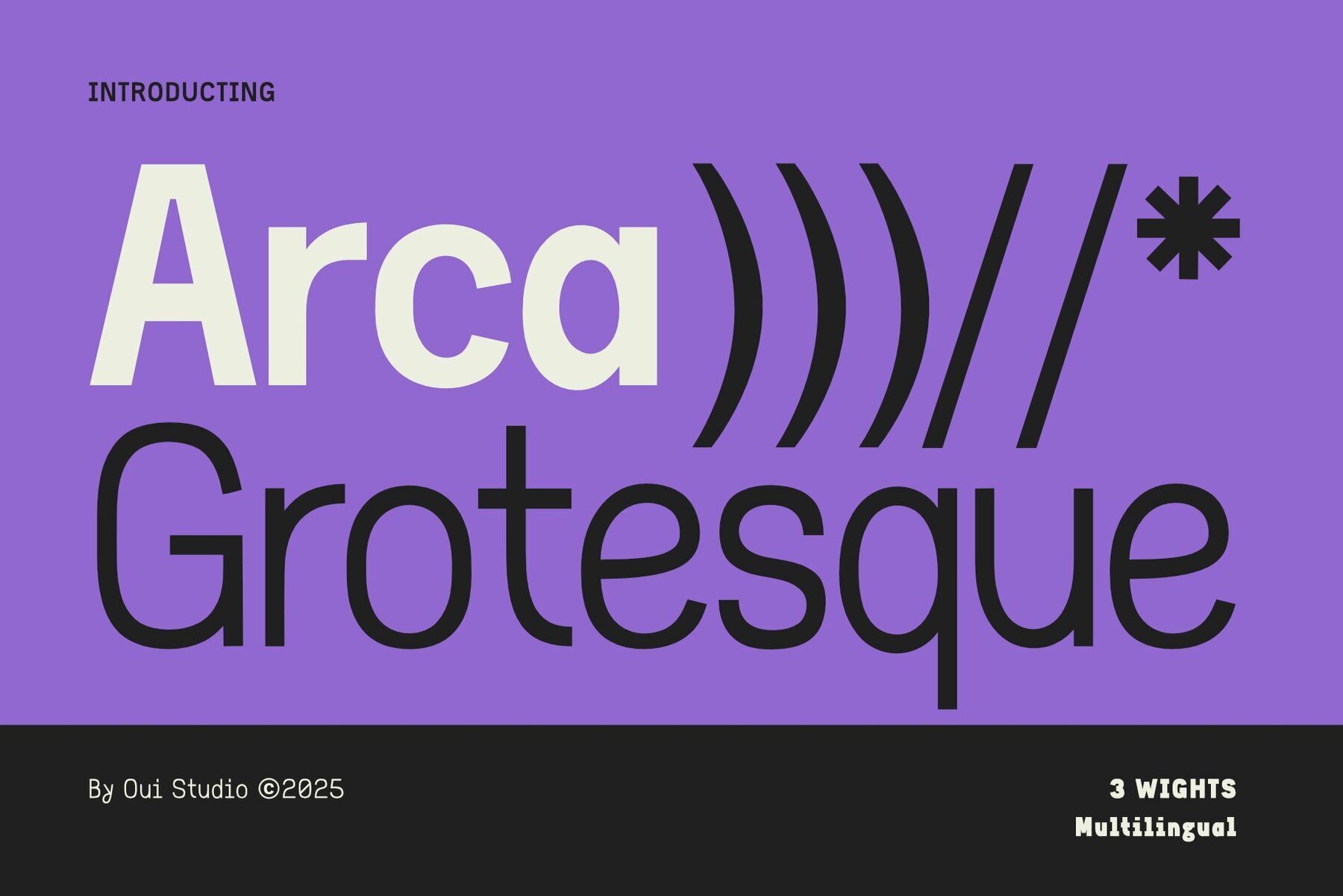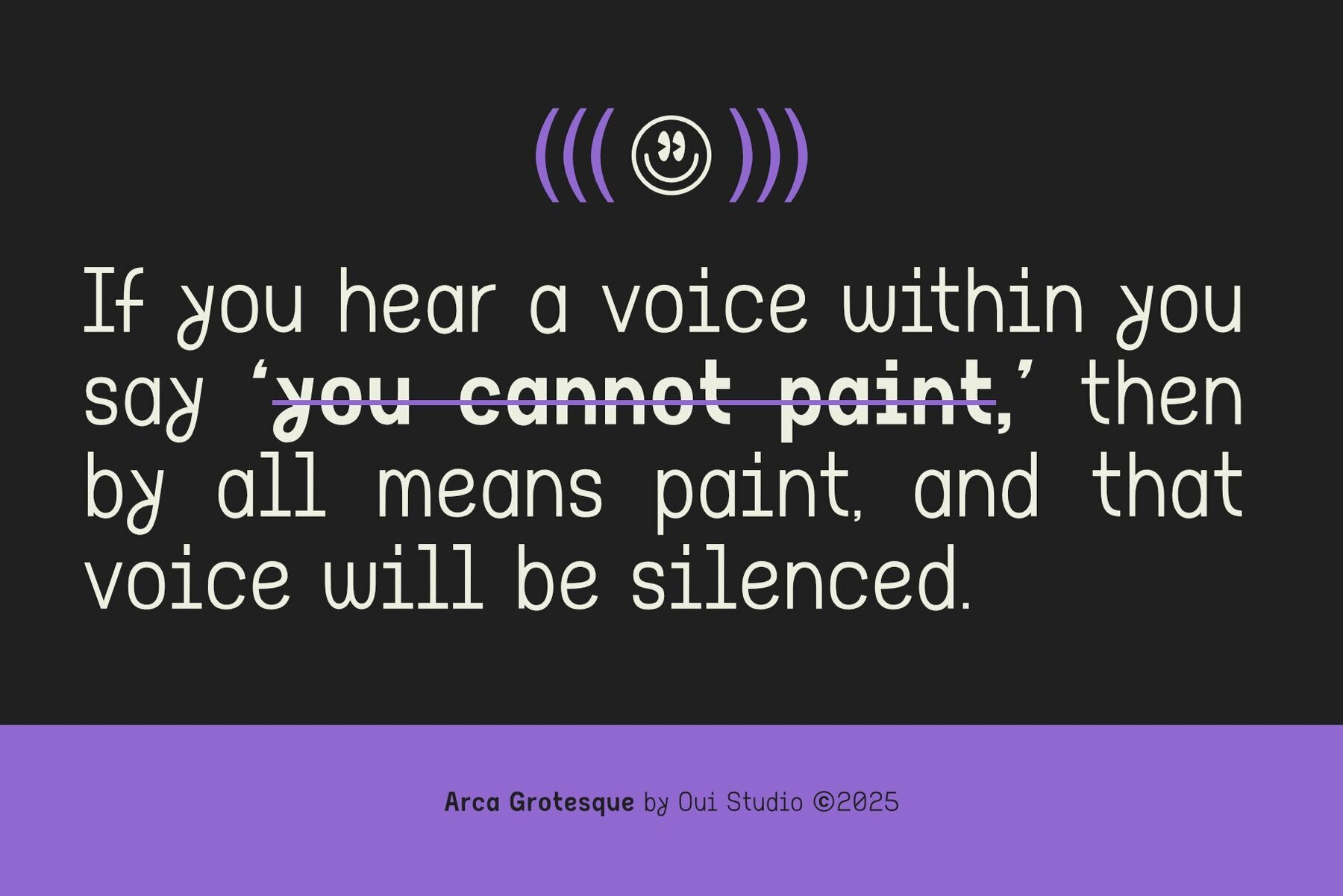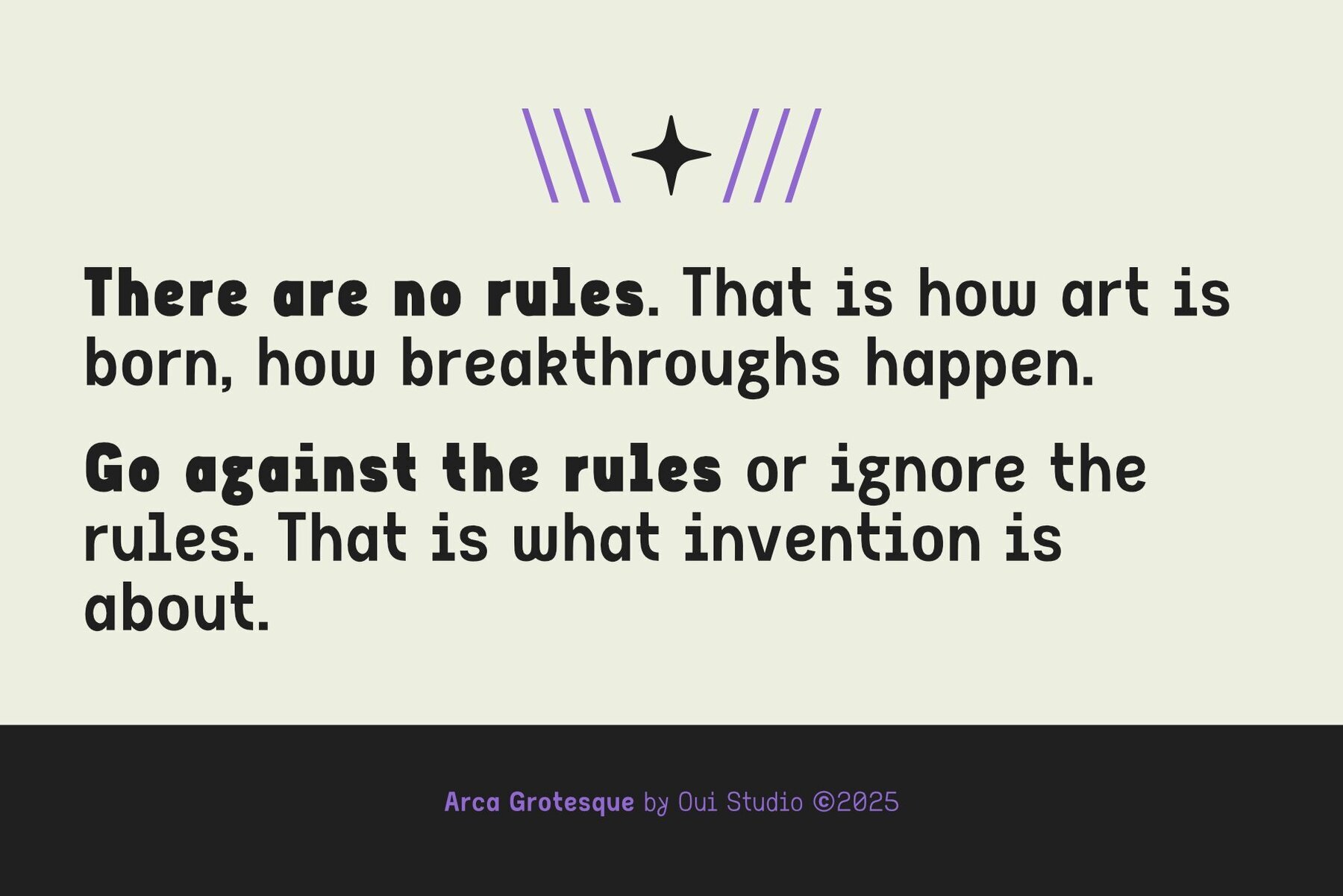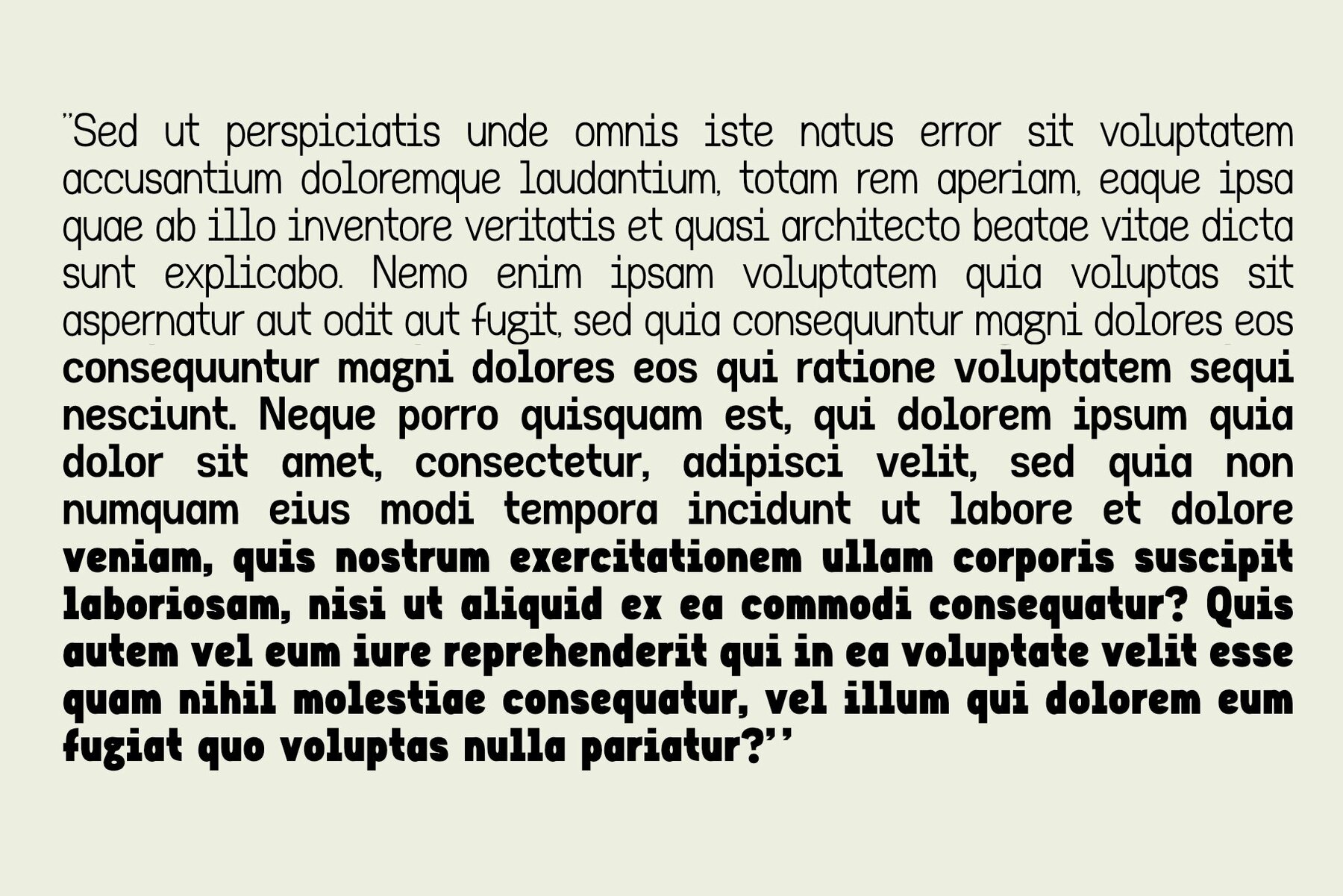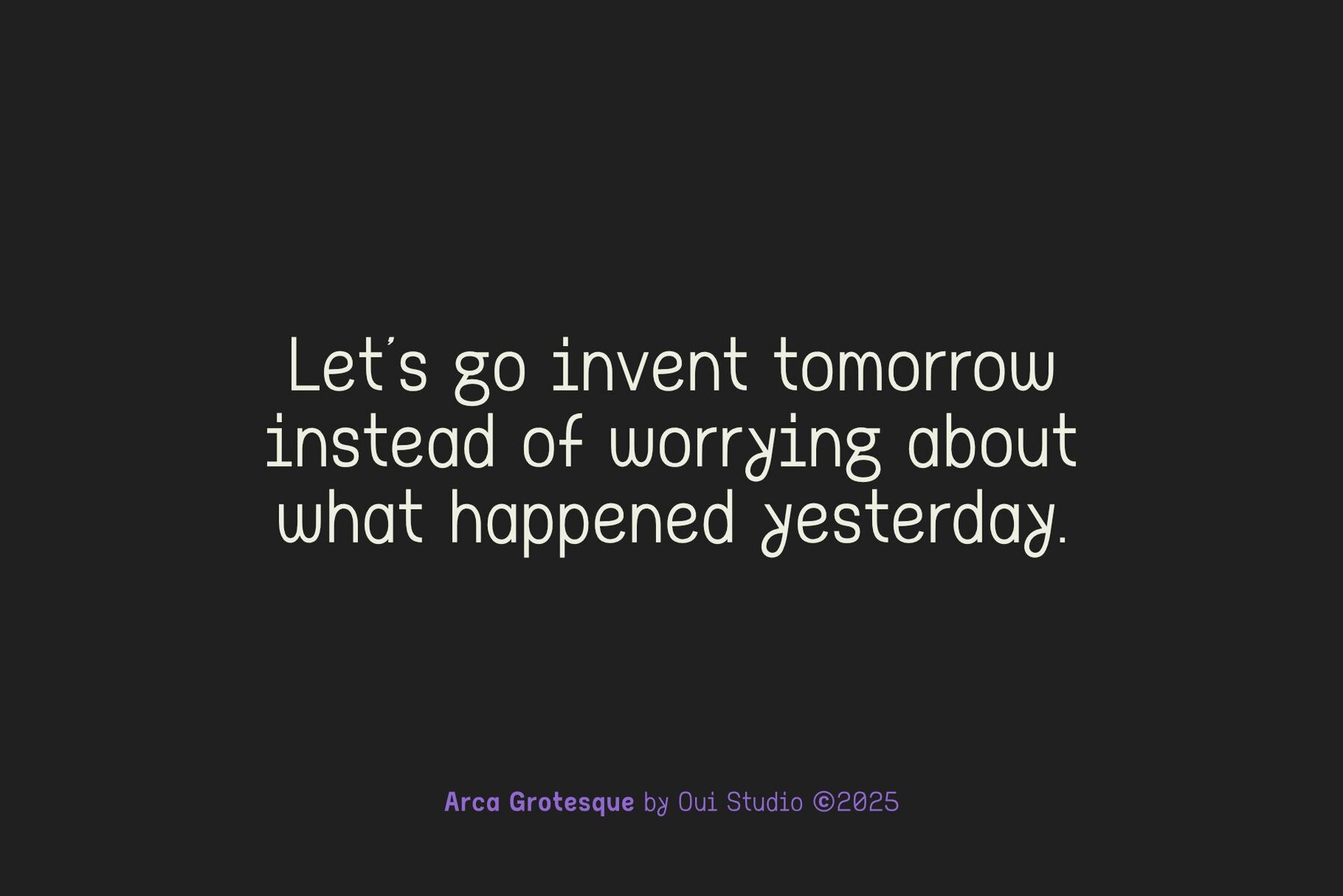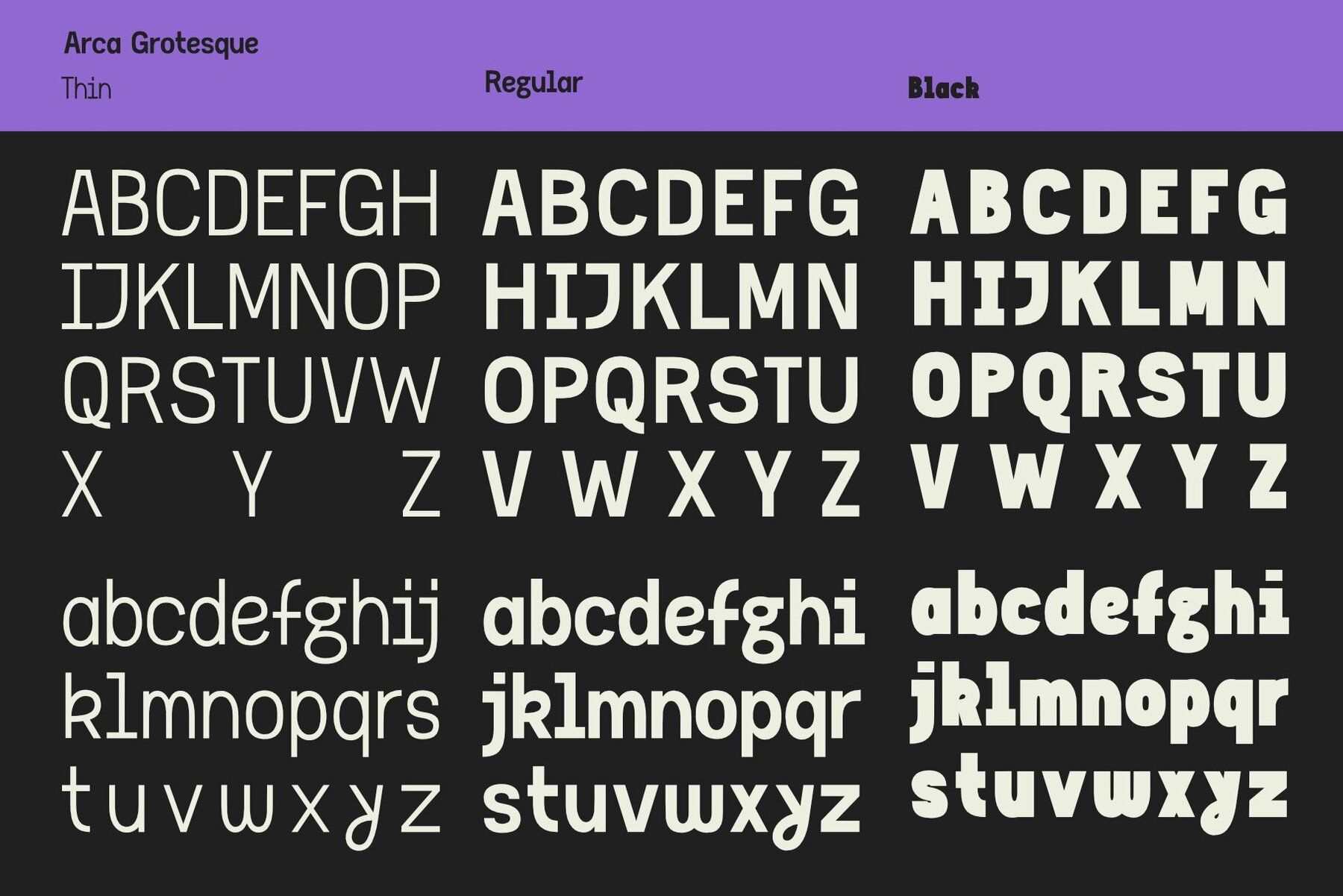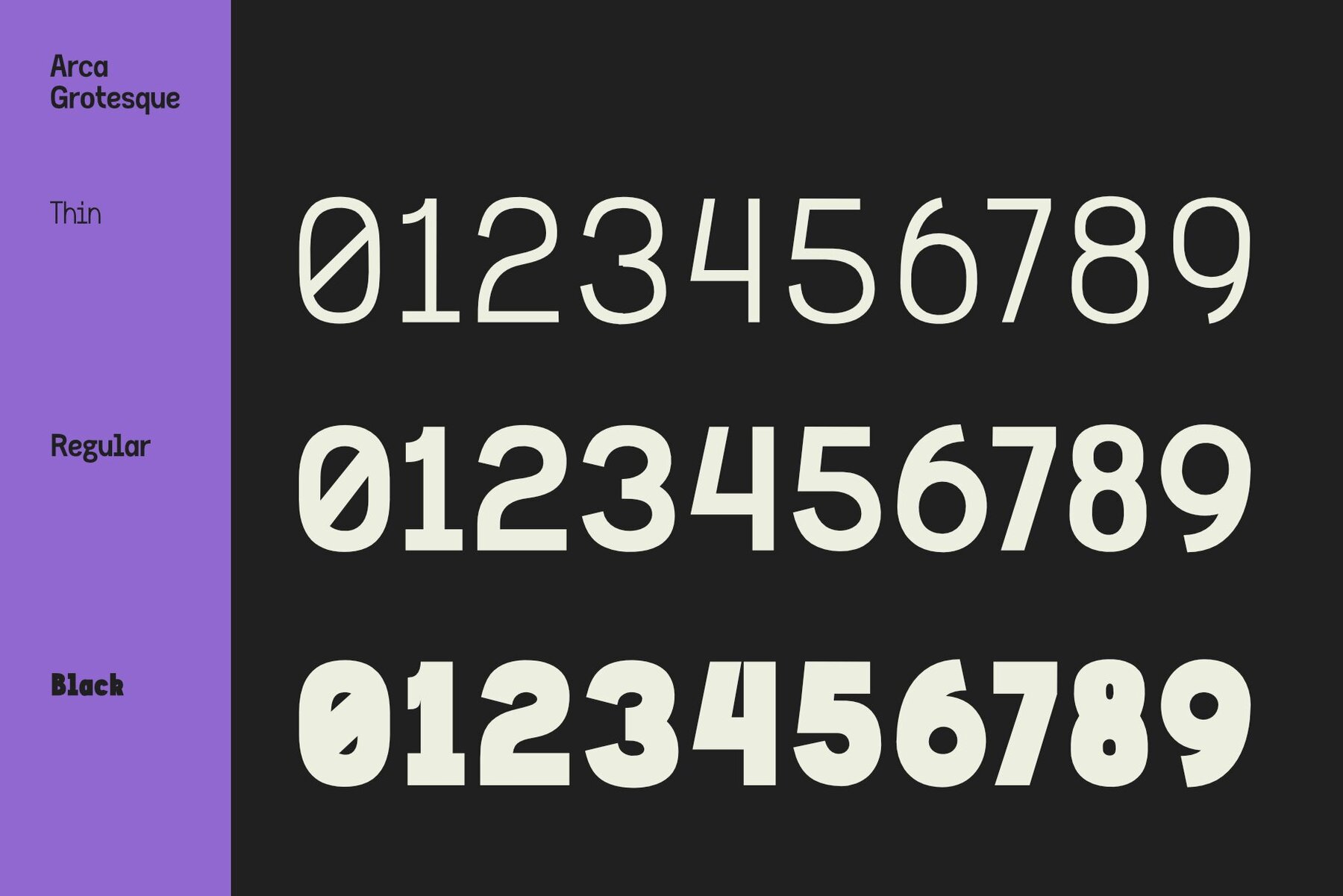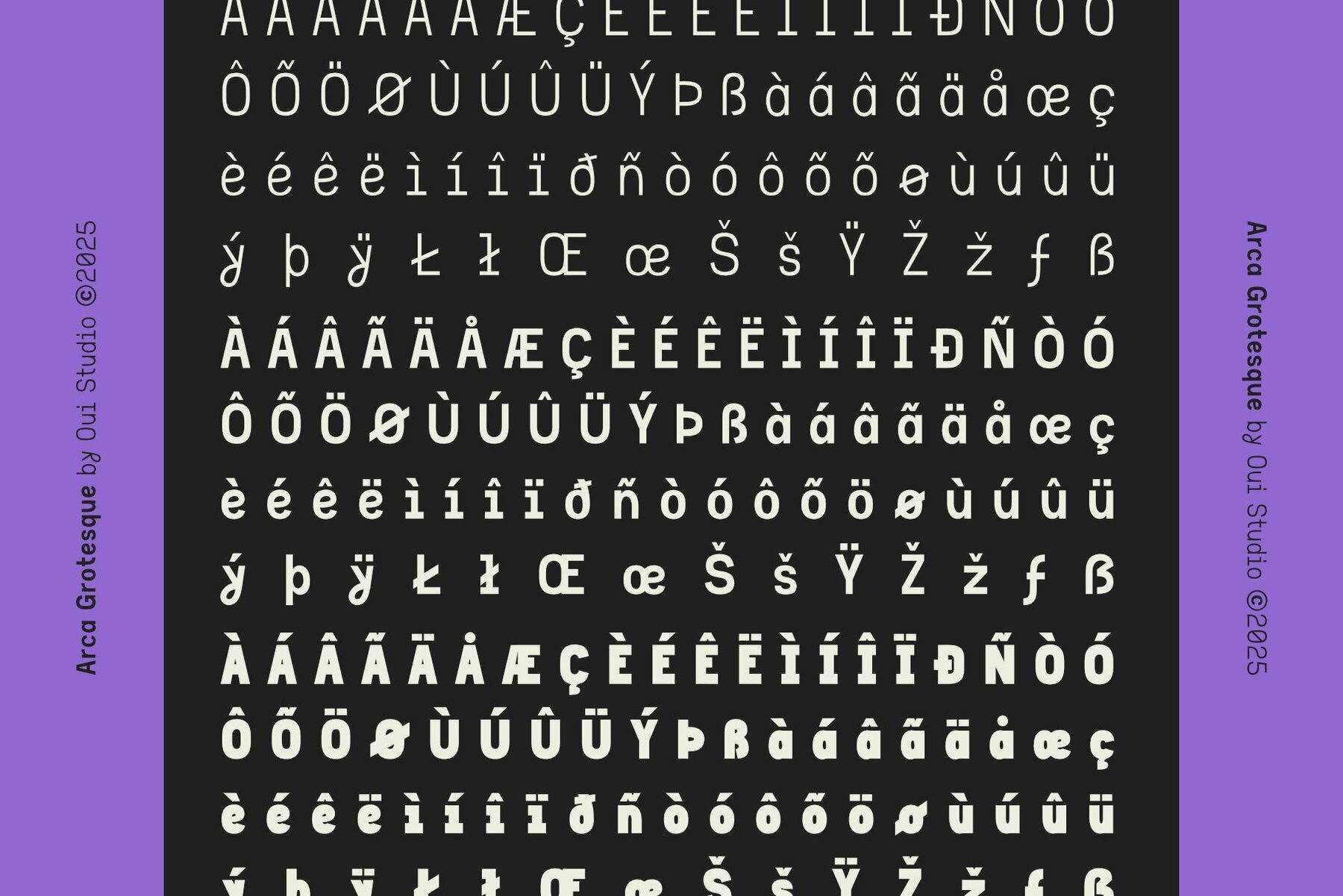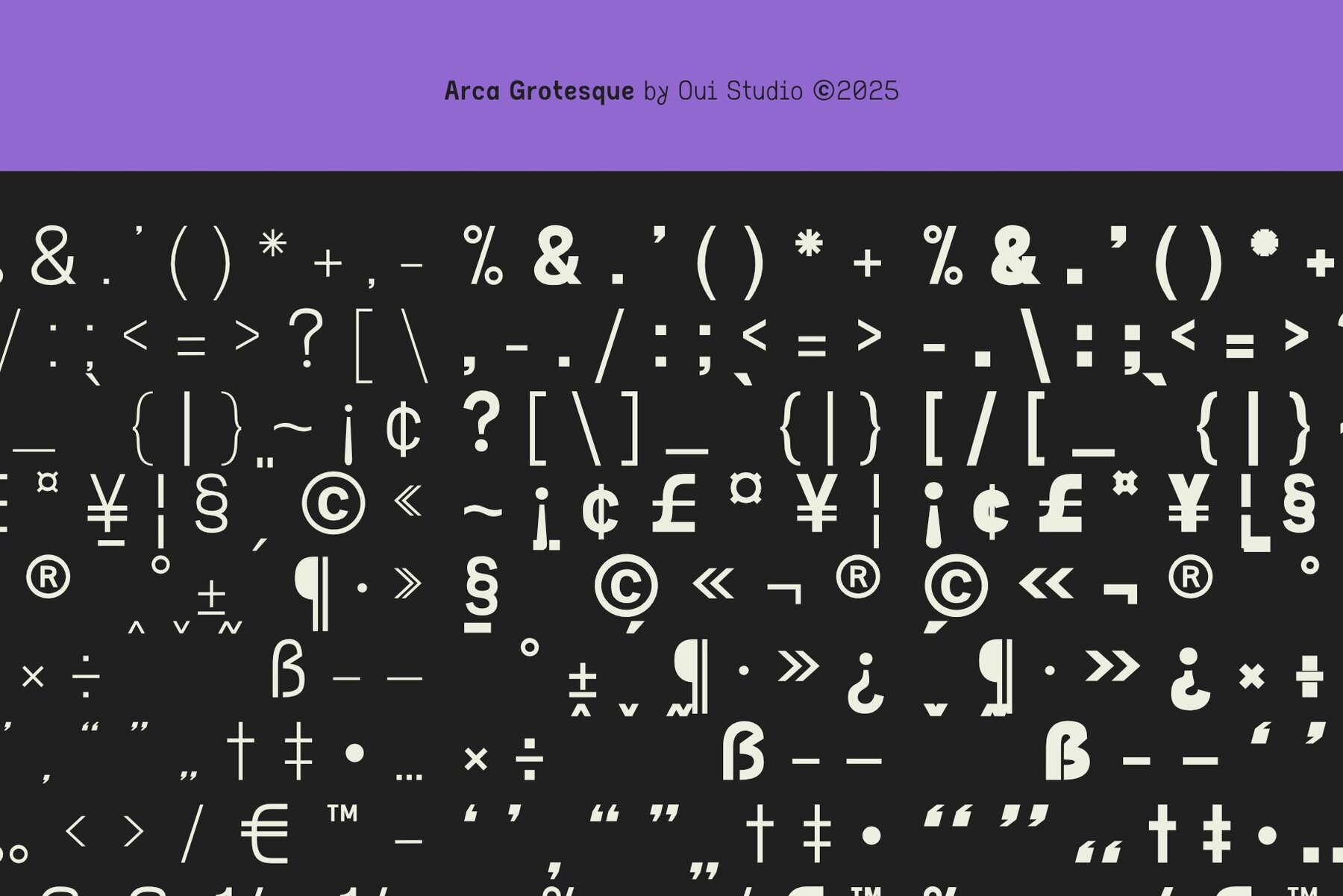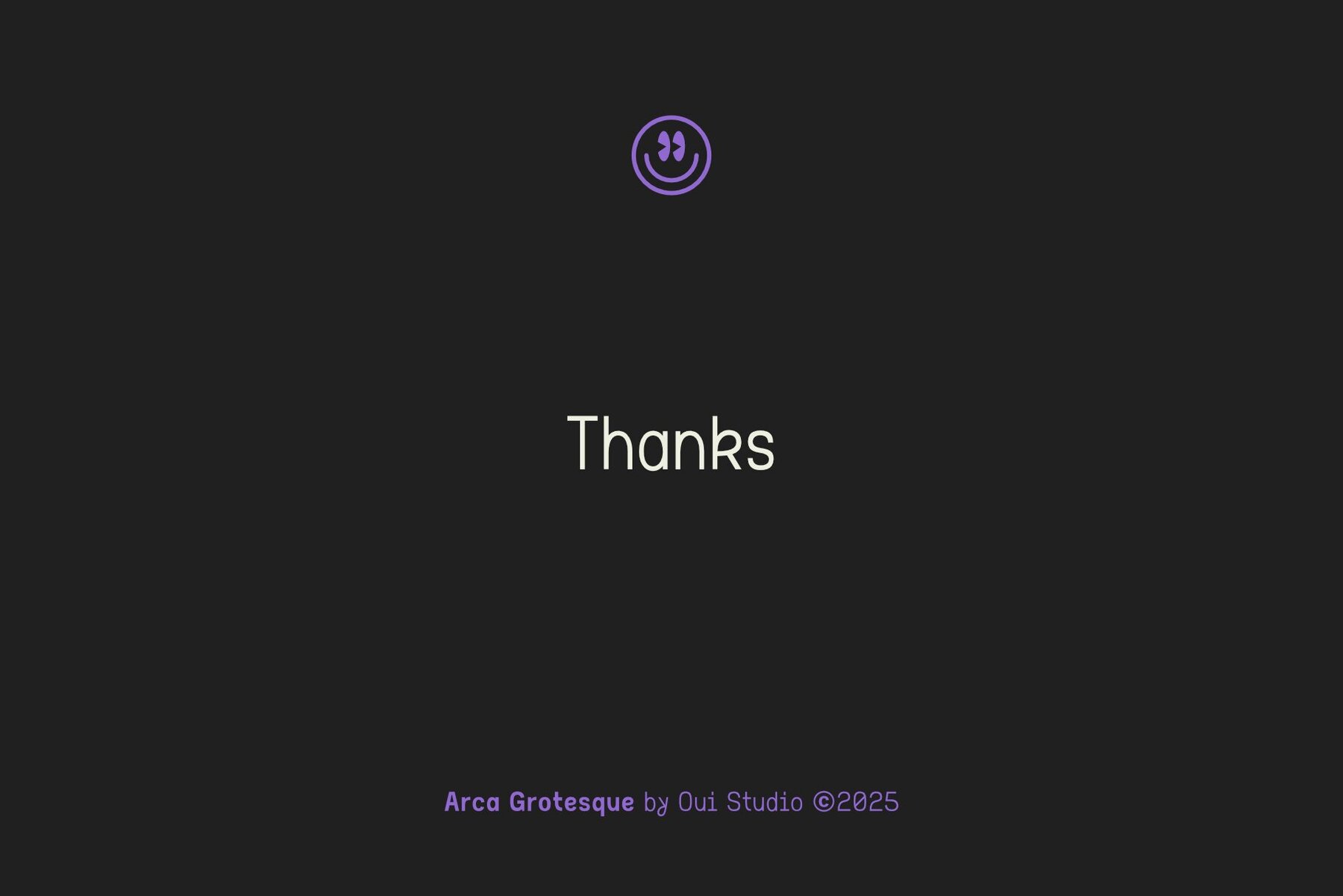
Arca Grotesque Font
Arca Grotesque is a modern sans-serif typeface that masterfully blends classic grotesque features with contemporary precision, making it a versatile choice for design professionals. Available in three distinctive weights, ranging from an ultra-thin, refined option to a commanding black, this font provides a dynamic range suitable for various design applications. The thin weight offers a light, airy touch ideal for subtle text or delicate headlines, while the bold black weight delivers a strong visual impact, perfect for standout titles and branding. This nuanced design makes Arca Grotesque an optimal choice for those seeking a harmonious blend of elegance and modernity.Arca Grotesque: Versatile Sans-Serif Font